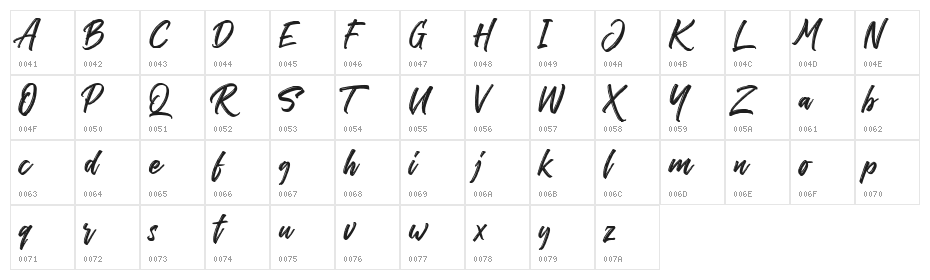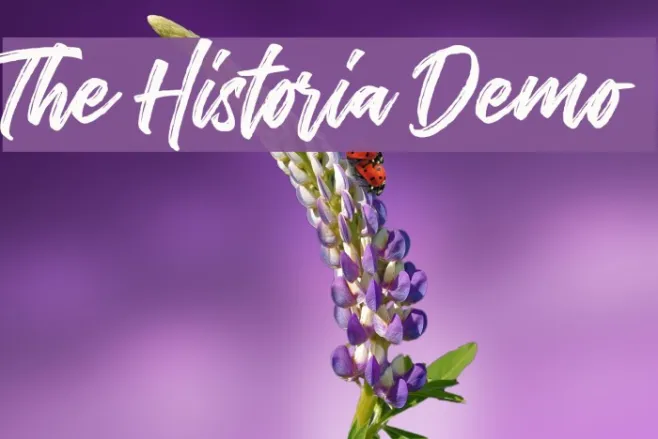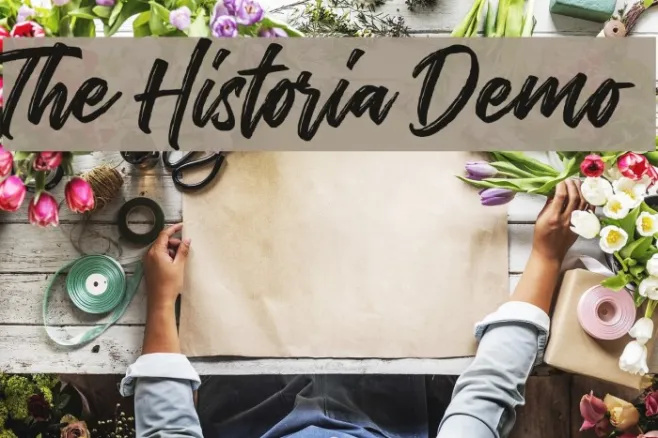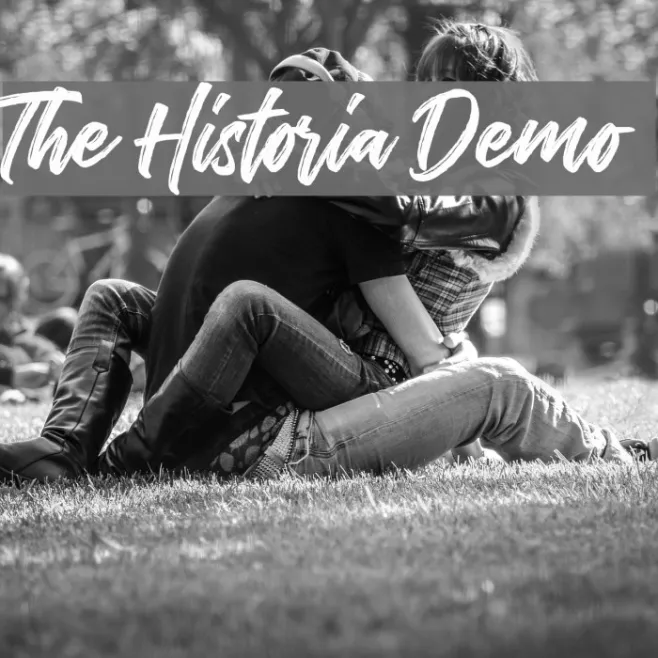
The Historia Demo Font
The Historia Demo Description
This font features a bold, expressive script style with a hand-drawn appearance. The strokes are dynamic and fluid, giving it a lively and energetic feel. The uppercase and lowercase letters are designed with a consistent slant, adding to its casual yet sophisticated look. The characters are well-spaced, ensuring readability while maintaining an artistic flair. The font includes a full set of uppercase and lowercase letters, numbers, and a selection of special characters, making it versatile for various design needs.
| Use Case | Logos, Invitations, Social Media Graphics |
| Proposed Projects | Ideal for branding projects, logos, invitations, and social media graphics where a personal touch is desired. |